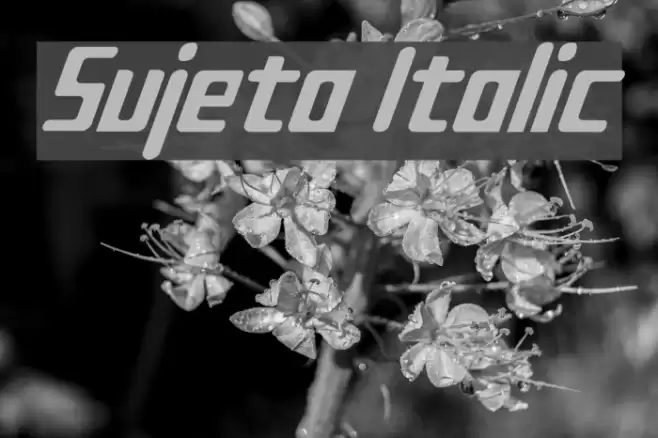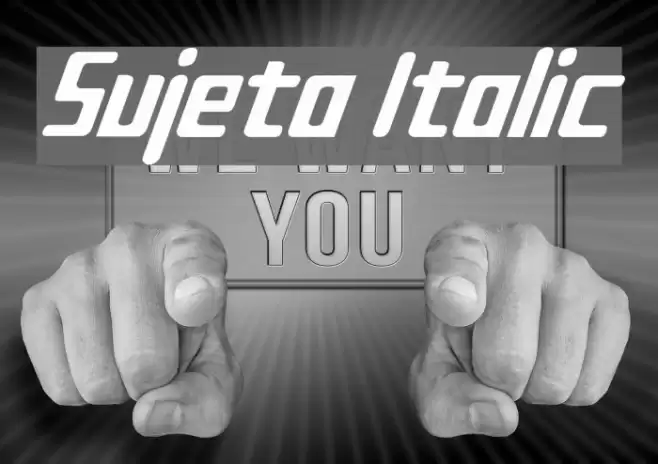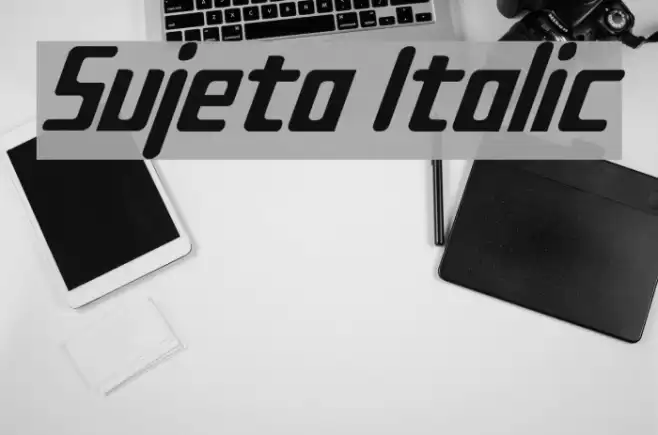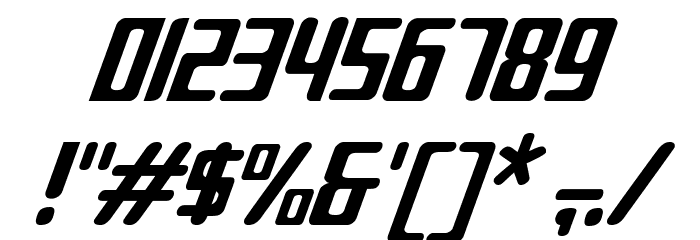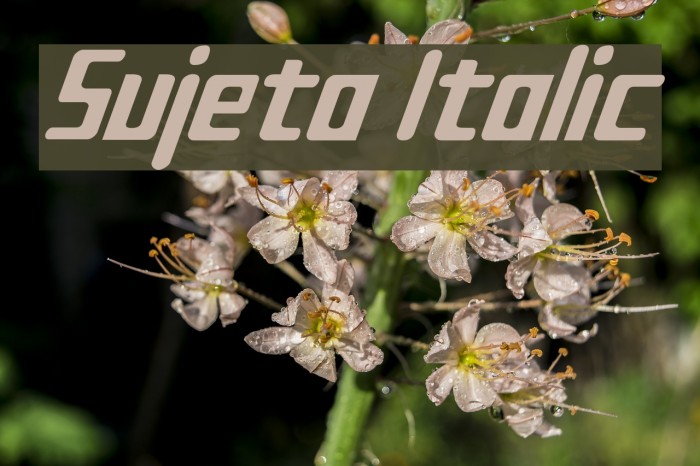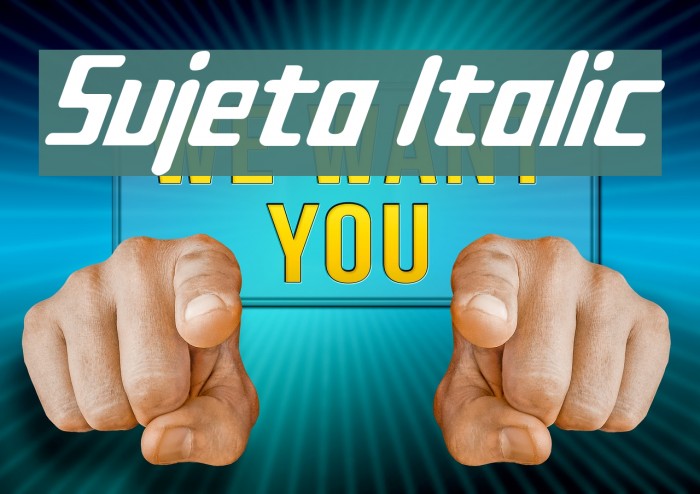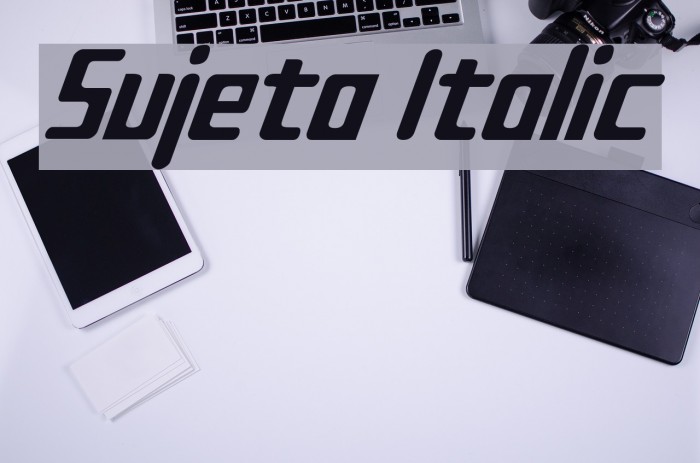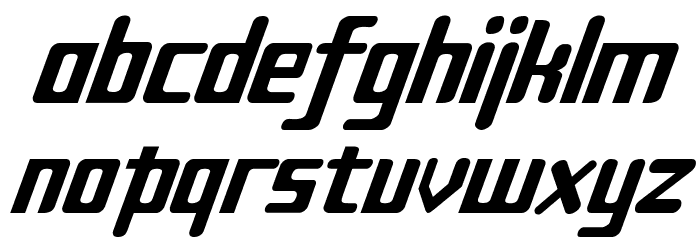
Sujeta Italic Font
Sujeta Italic Description
This font features a dynamic and modern italic style with a forward-leaning slant that conveys a sense of motion and energy. The characters are bold and slightly condensed, giving them a strong presence on the page. The strokes are consistent in weight, providing a uniform appearance across all characters. The design includes sharp angles and clean lines, enhancing its contemporary feel. The numerals and special characters maintain the same stylistic elements, ensuring cohesiveness throughout the typeface.
A bold, italic font with a modern and dynamic style from Formal fonts.